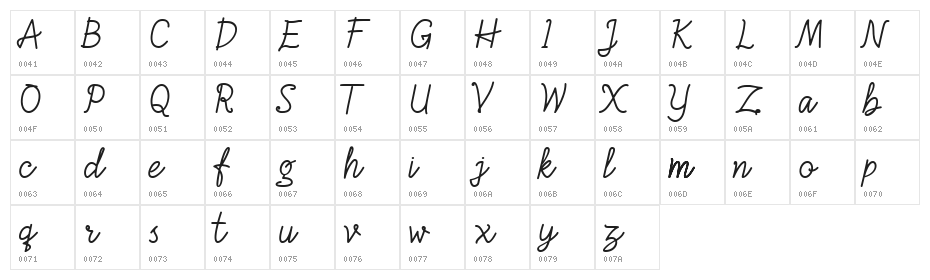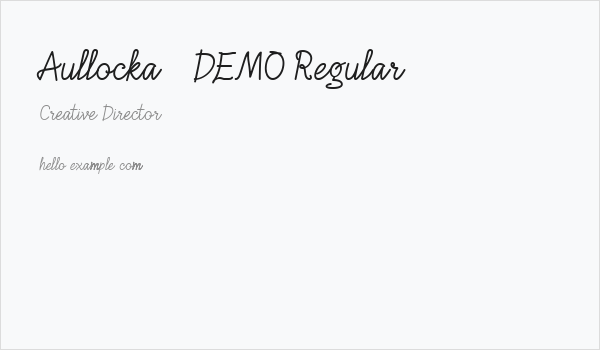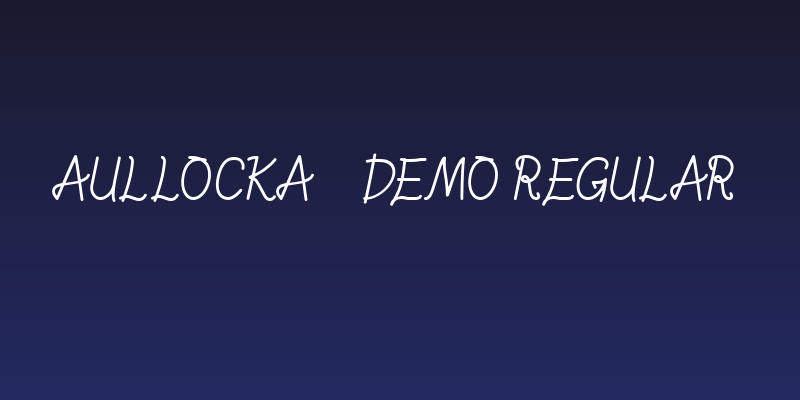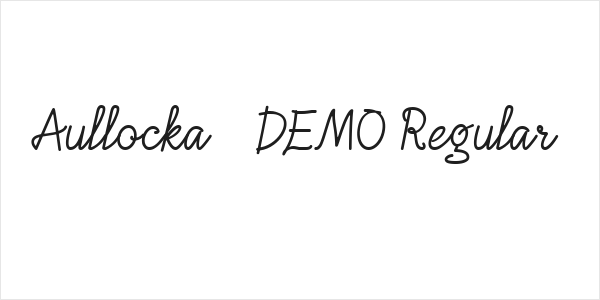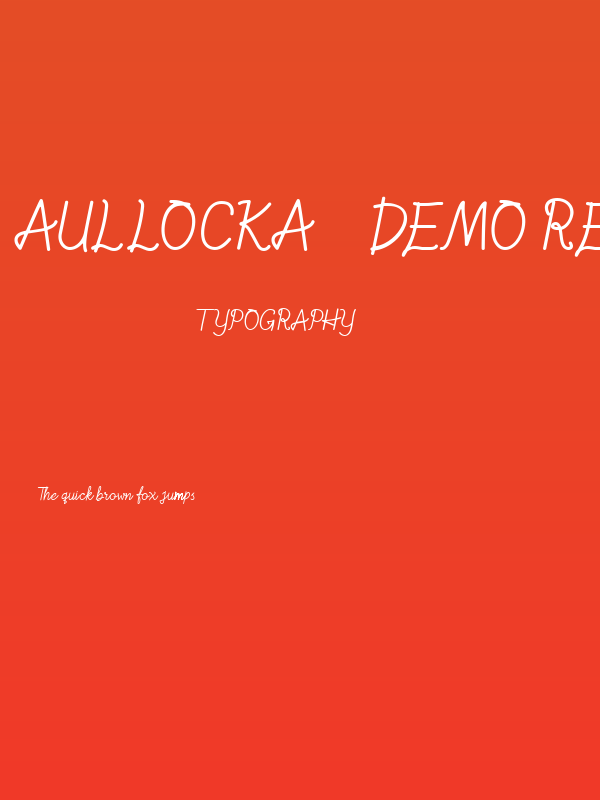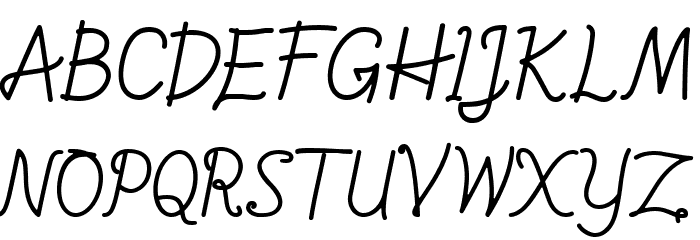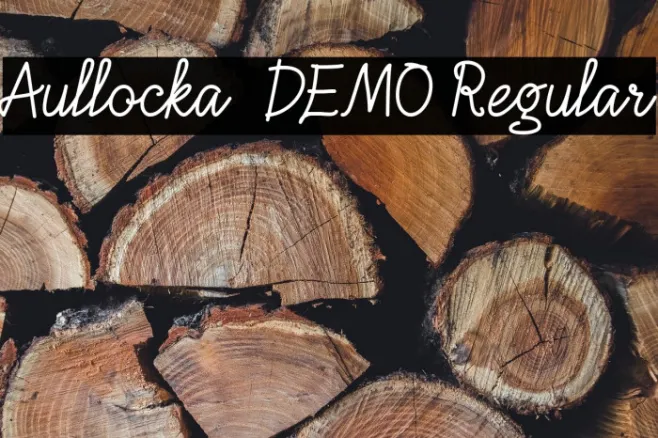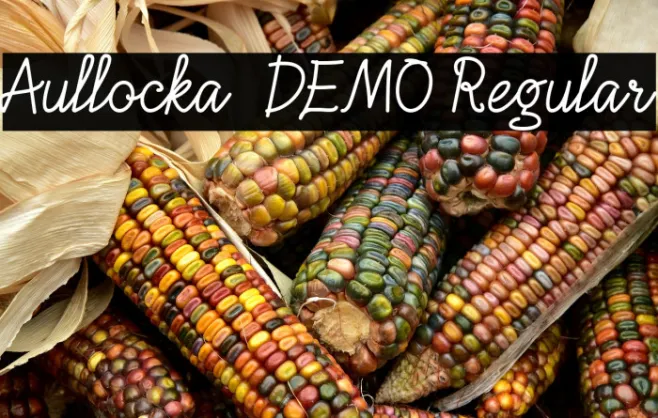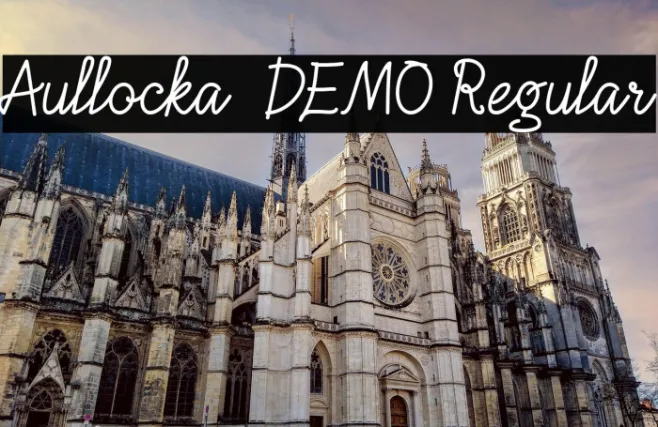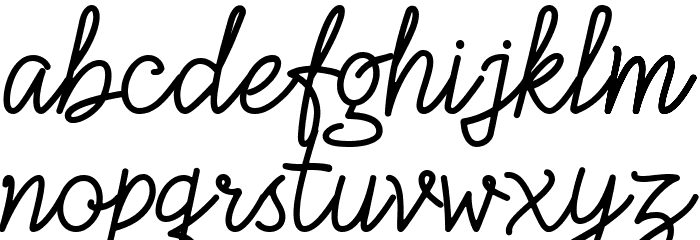
Aullocka - DEMO Regular Font
Aullocka - DEMO Regular Description
This font features a playful and casual handwritten style, characterized by its fluid and continuous strokes. The uppercase letters are tall and slightly narrow, with a consistent slant that adds a sense of movement and dynamism. The lowercase letters maintain a similar slant, with rounded forms that enhance the font's approachable and friendly appearance. The overall design is clean and legible, making it suitable for a variety of informal applications. The characters are well-spaced, ensuring readability while maintaining the font's unique personality.
| Use Case | Logos, Headlines, Informal Text |
| Proposed Projects | Ideal for greeting cards, personal branding, social media graphics, and informal invitations. |